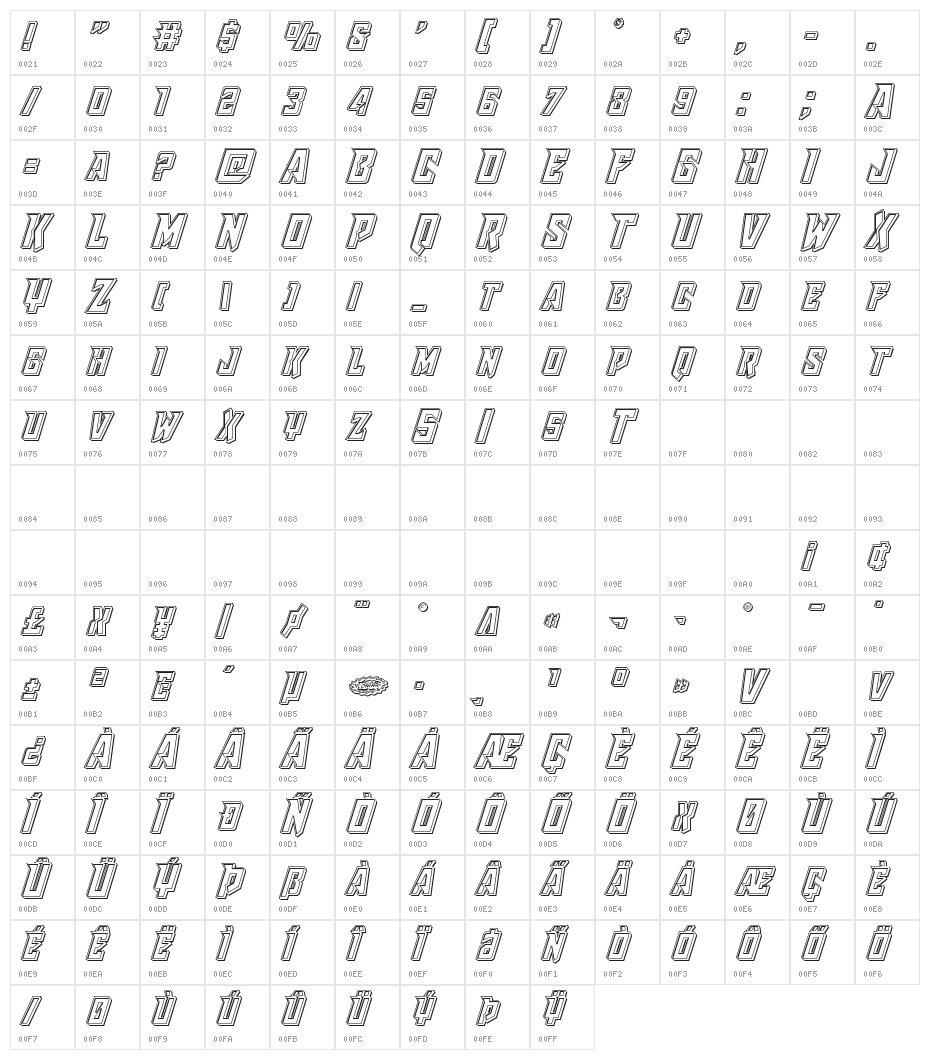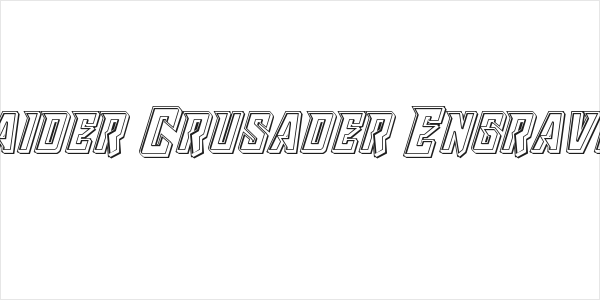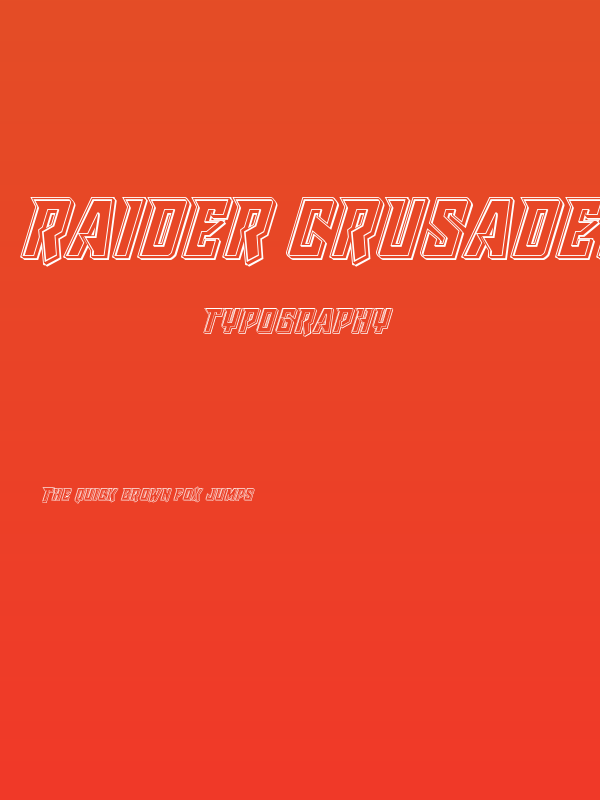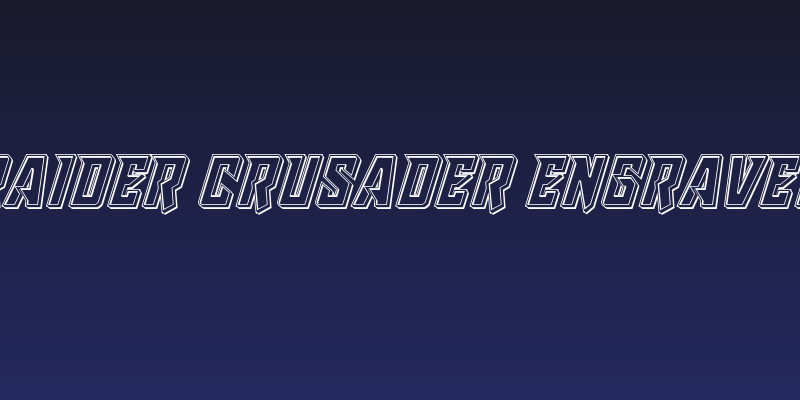
Raider Crusader Engraved Font
Raider Crusader Engraved Description
This font features a bold and dynamic 3D engraved style, characterized by its strong geometric shapes and sharp angles. The letters are outlined with a double line effect, creating a sense of depth and dimension. The uppercase and lowercase letters maintain a consistent style, with a slight slant that adds a sense of movement and energy. The numerals and special characters are designed to match the bold and striking appearance of the alphabet, making the font suitable for impactful and attention-grabbing designs.
| Proposed Projects | Ideal for use in posters, logos, video game titles, and any project requiring a strong, dynamic visual impact. |